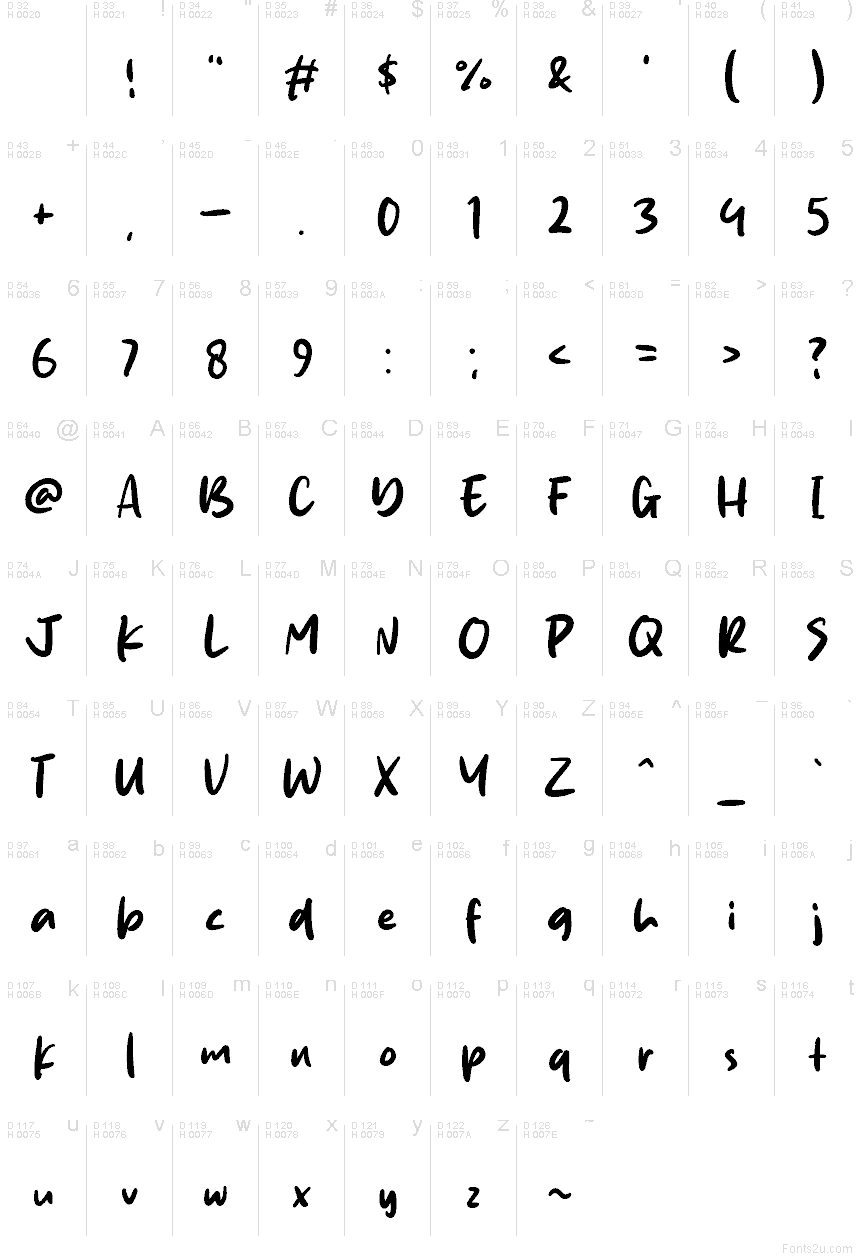
Casta Bianca
Casta Bianca font by MJType is a free brush font that gives you handwritten energy without the usual messiness. Its strokes look inky and natural, with rounded forms and steady rhythm that stay easy to read even at smaller sizes. The letters connect loosely, so you get that breezy, personal touch while still keeping layouts clean and organized.
Using Casta Bianca, you can quickly dress up social media graphics, logos, packaging, quote posters, invitations, and lifestyle branding. This free font shines when used large for short phrases, then paired with a simple sans serif for supporting text to keep everything balanced and clear.